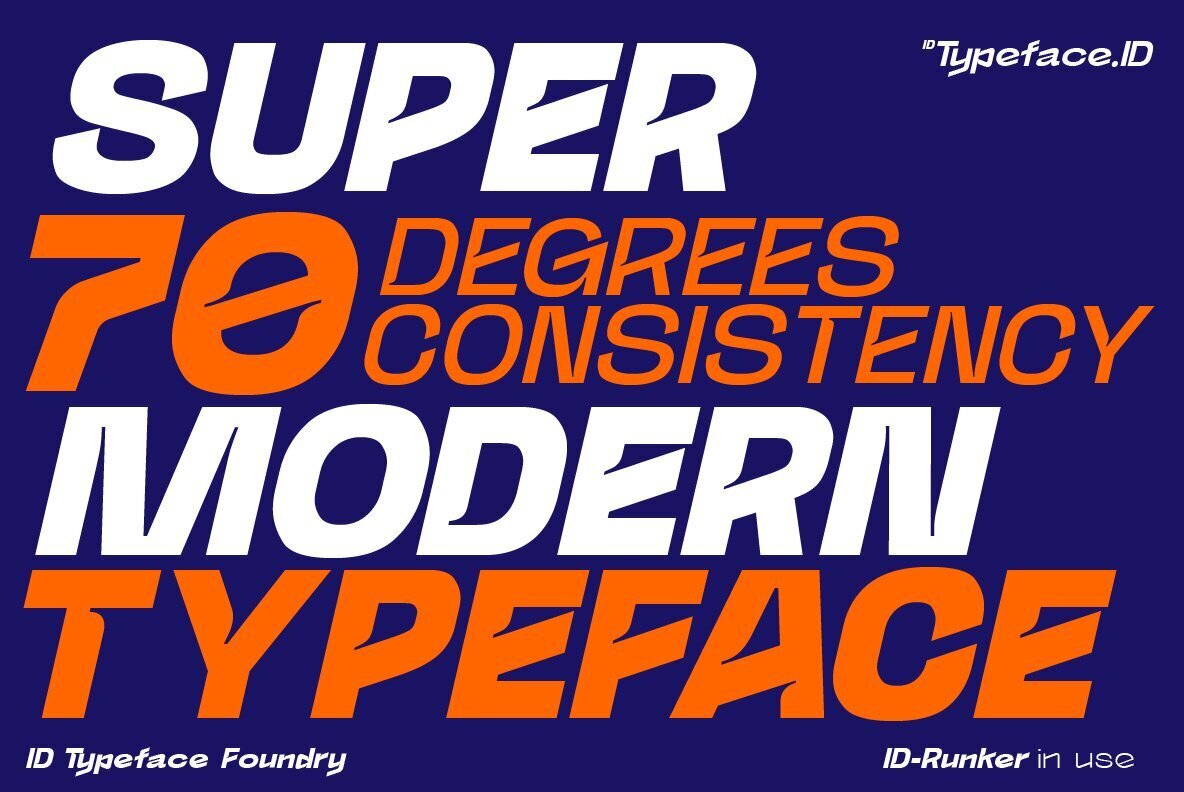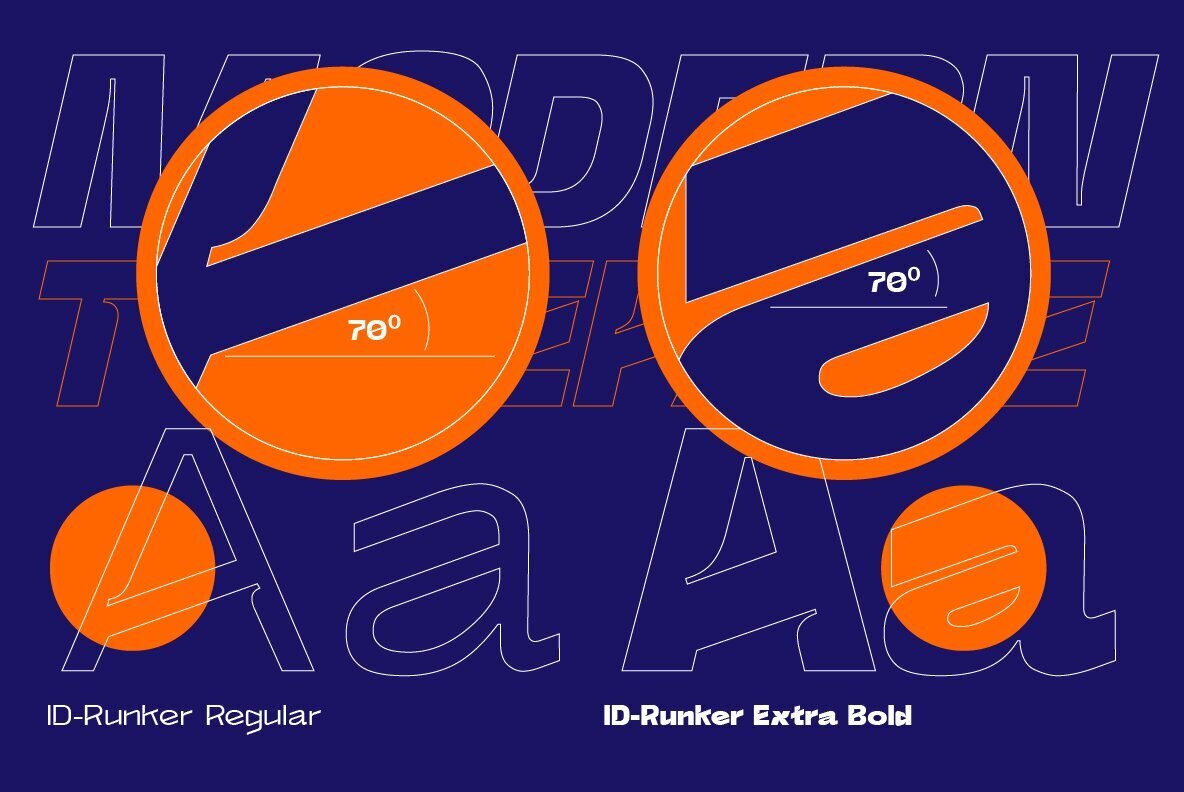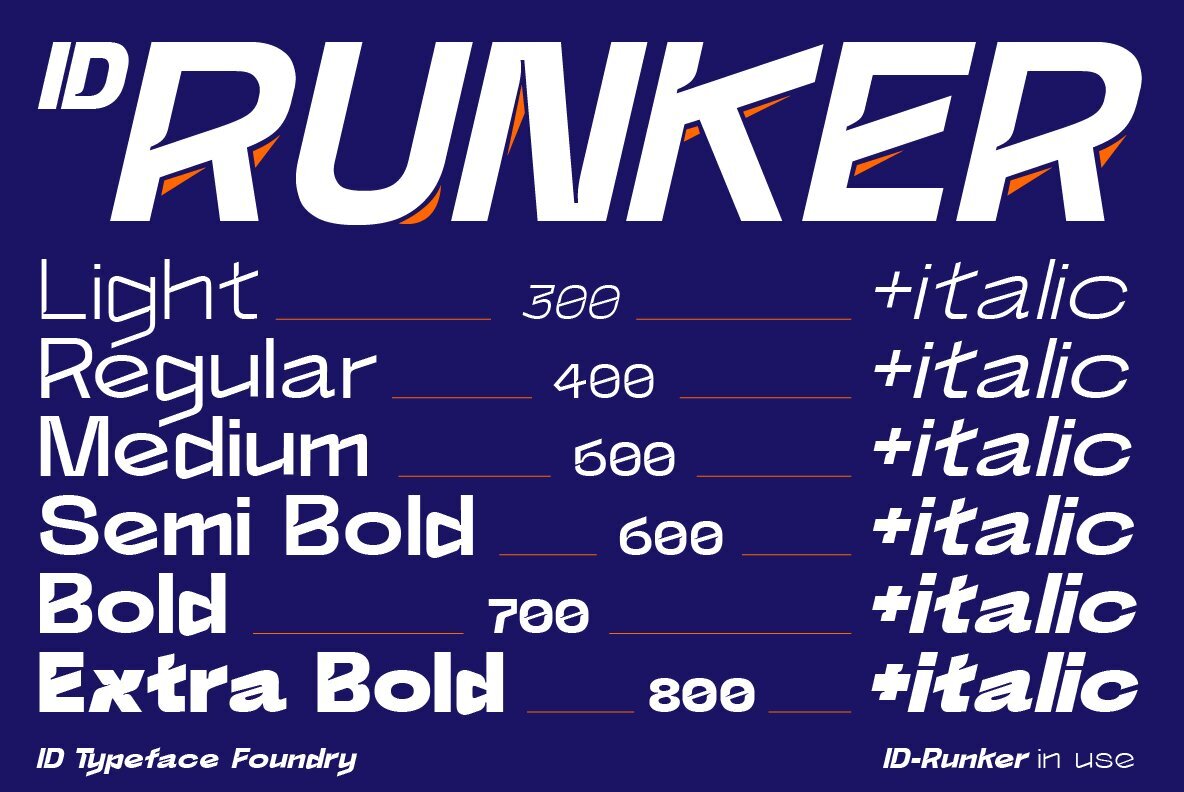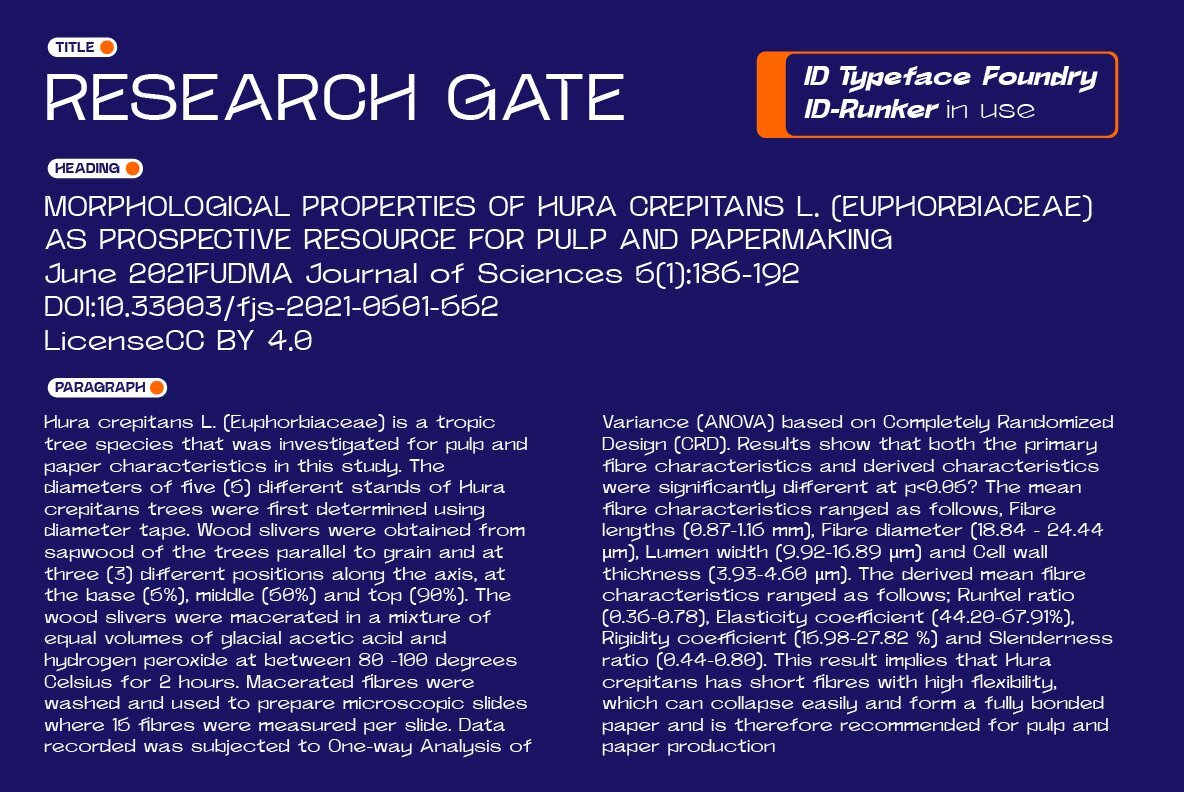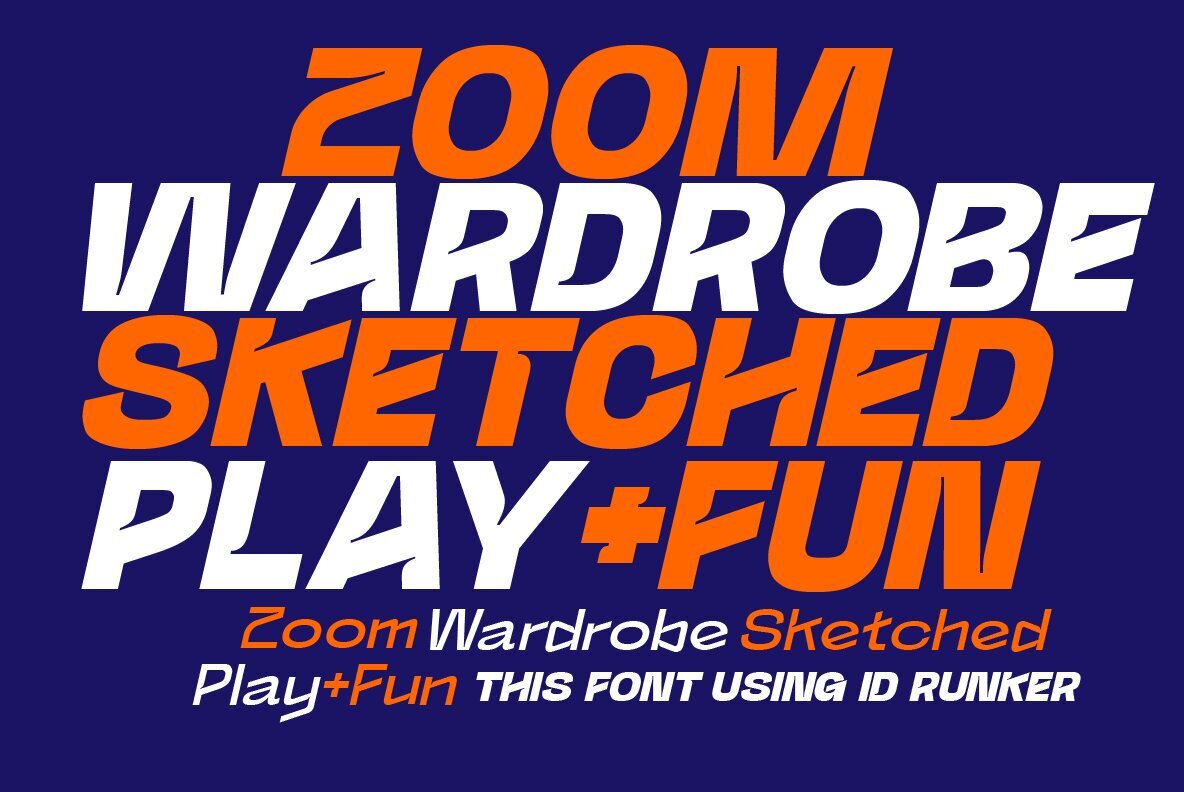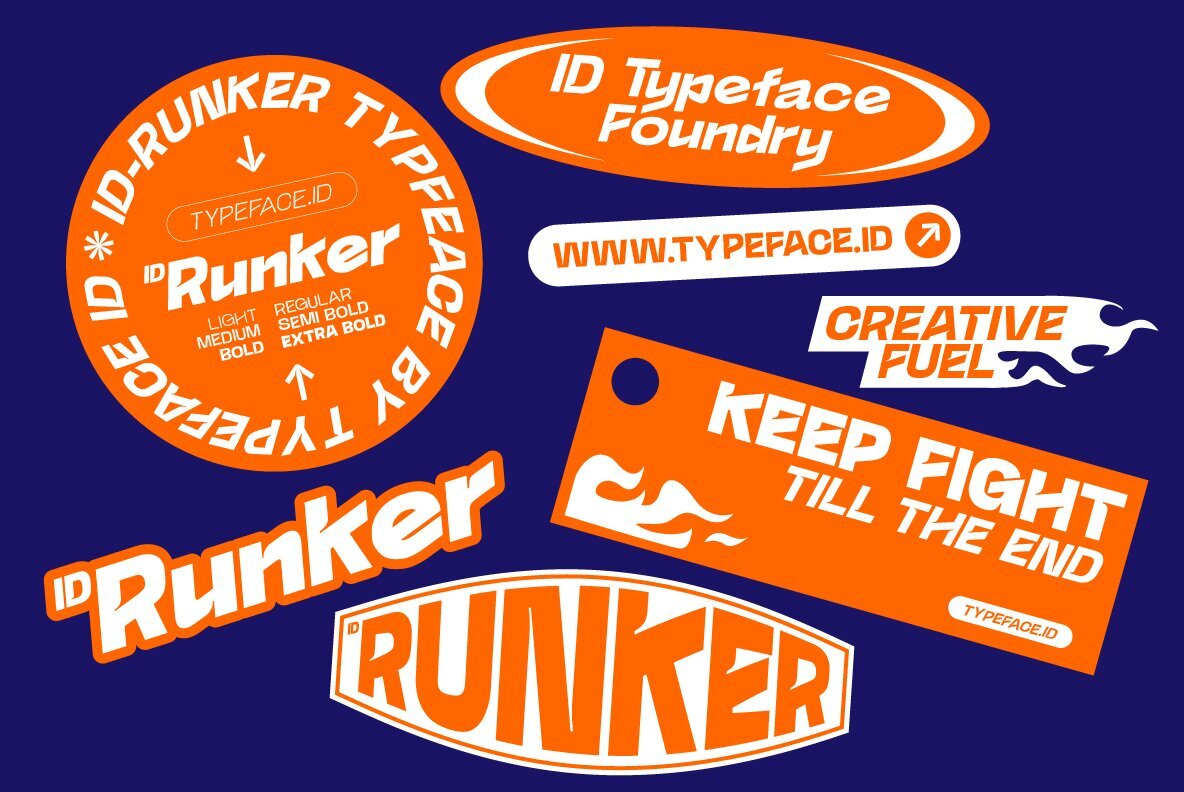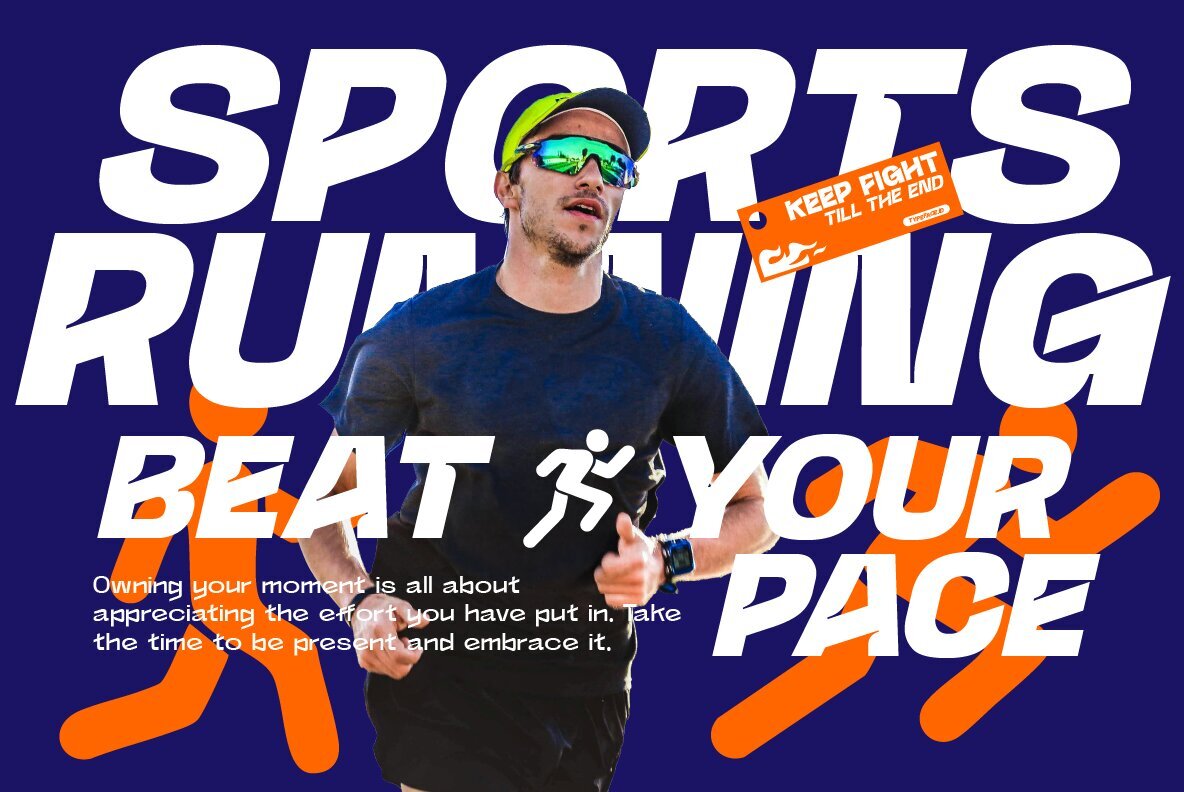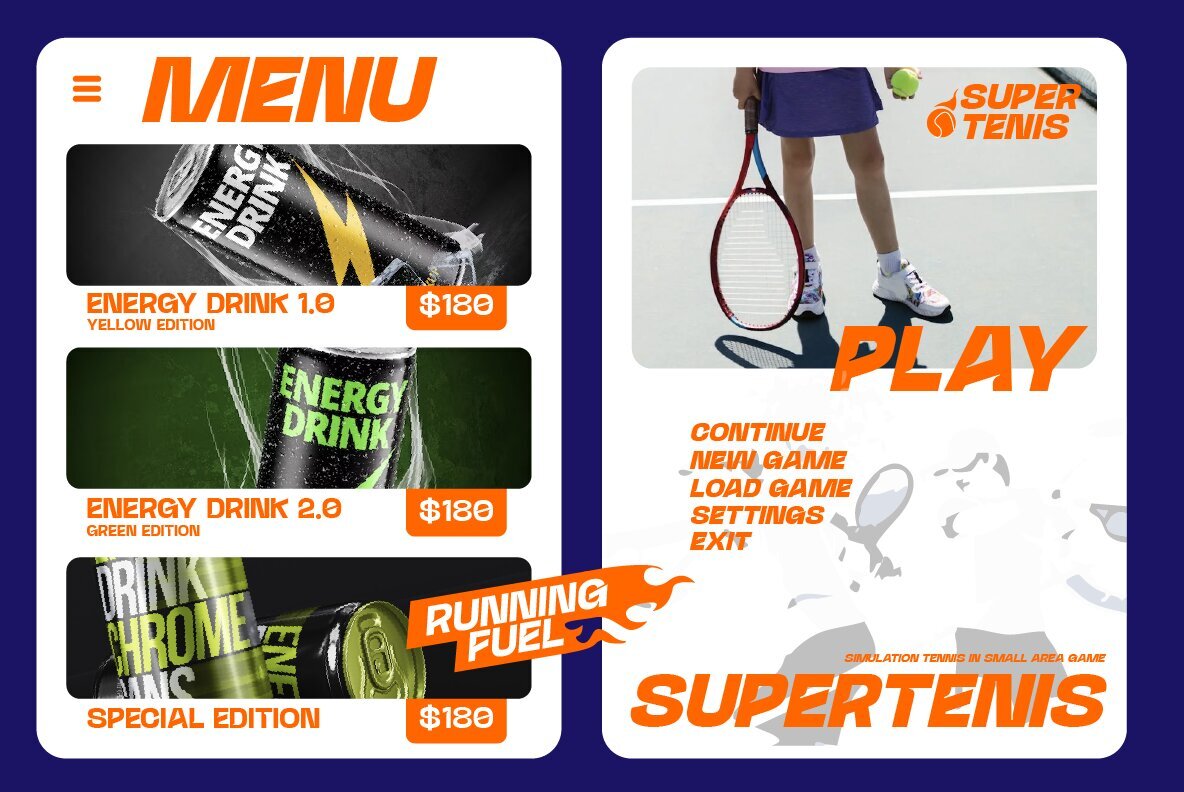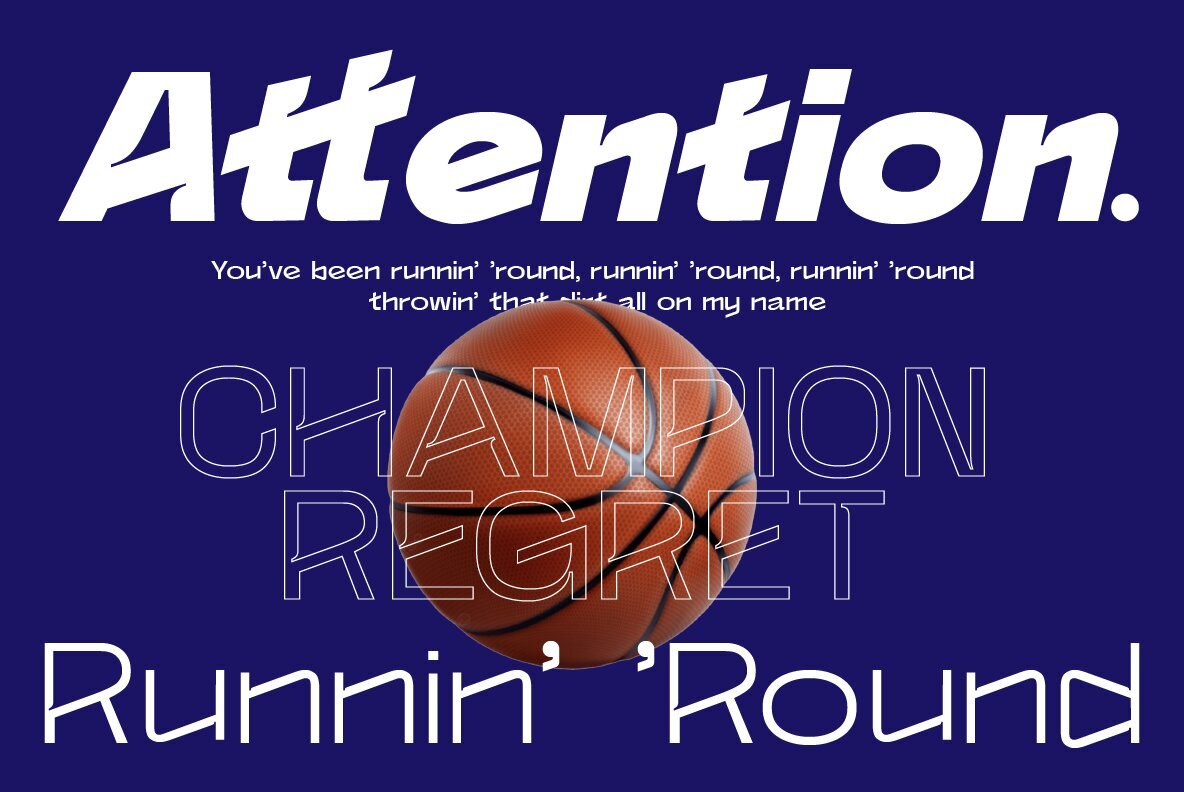
ID Runker Font
ID Runker is a distinctive sans display typeface characterized by its consistent 70-degree angle across all letterforms, giving it a bold and unique aesthetic. Designed to stand out, ID Runker offers versatility, making it an excellent choice for both headings and body text. Whether you’re creating striking titles, crafting captivating branding, or enhancing editorial layouts, ID Runker provides a clean yet dynamic feel that elevates your designs. Its modern geometry ensures readability while adding a creative edge to any project. Explore the endless possibilities with ID Runker – perfect for designers seeking a balance of functionality and personality.ID Runker: Distinctive Sans Display Typeface